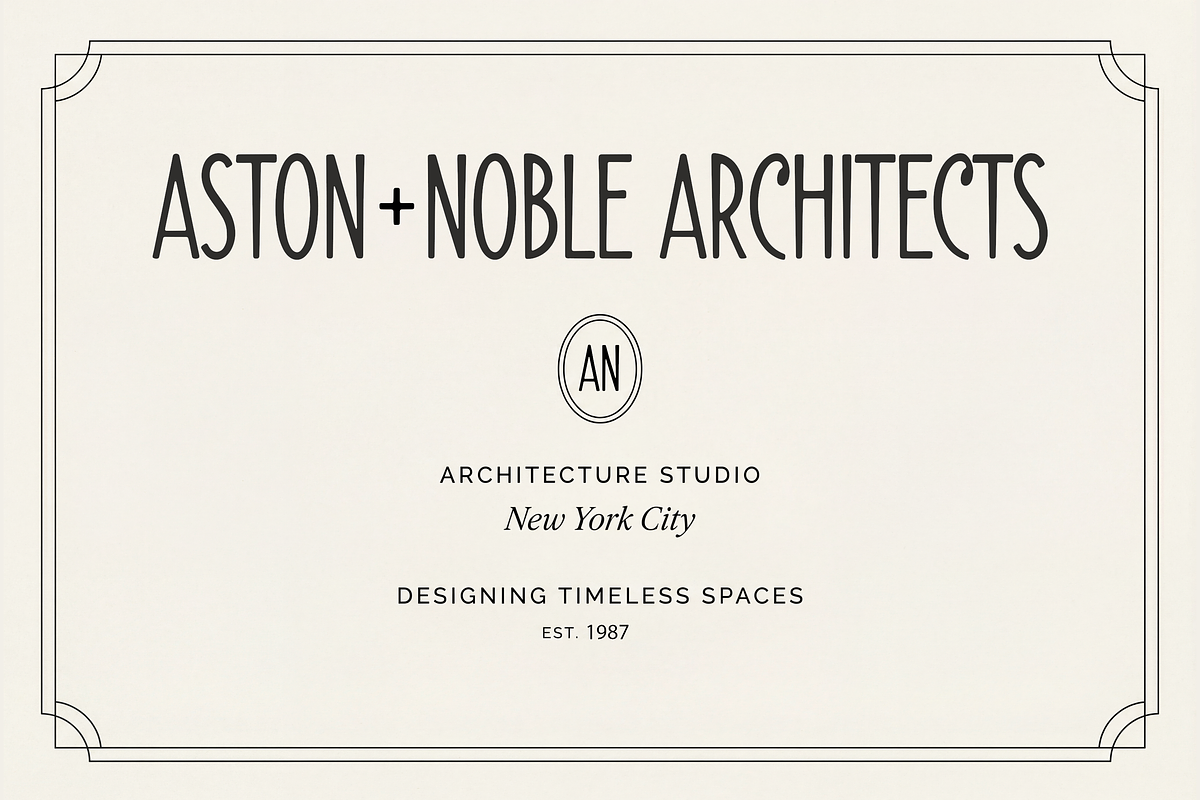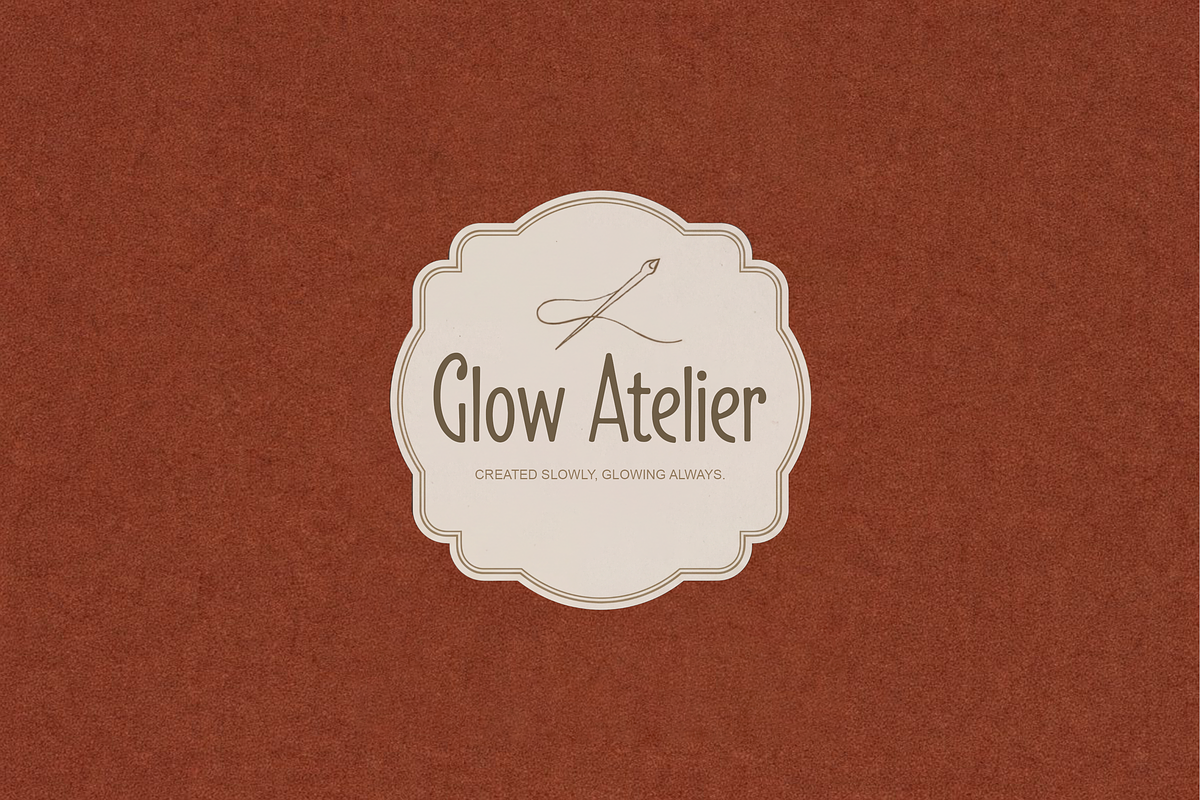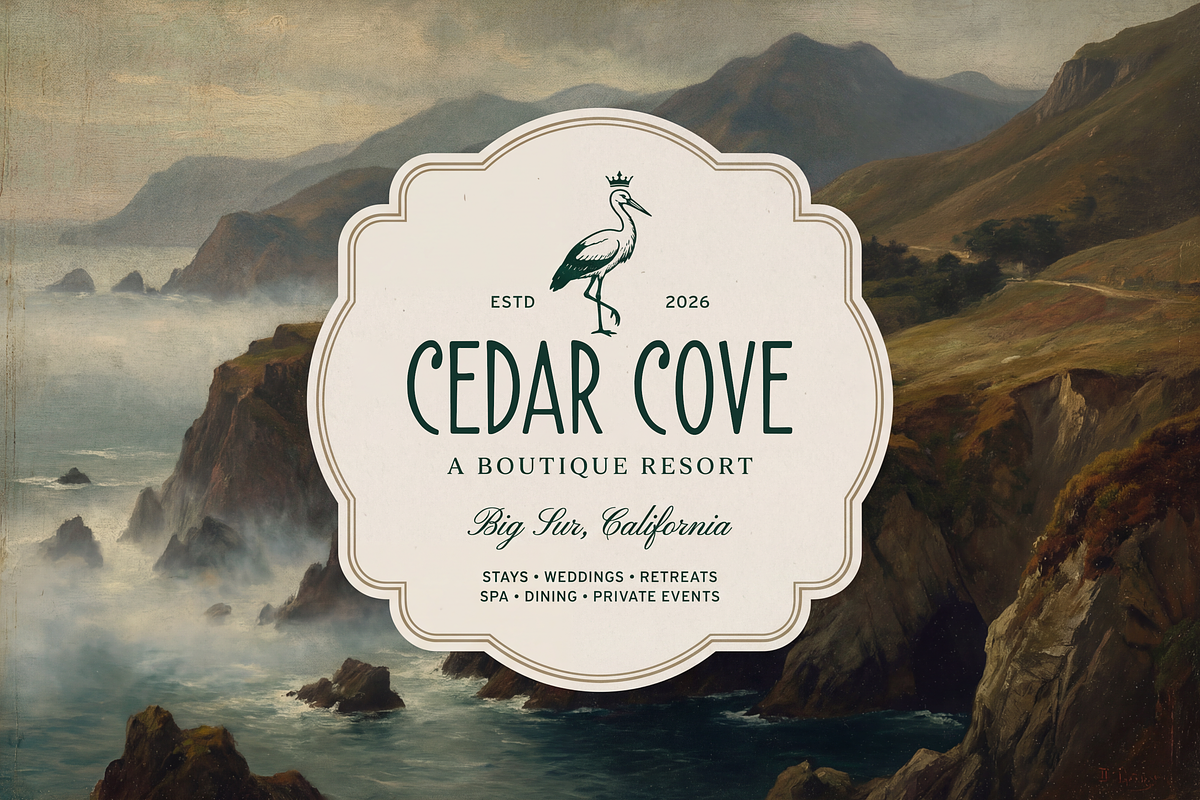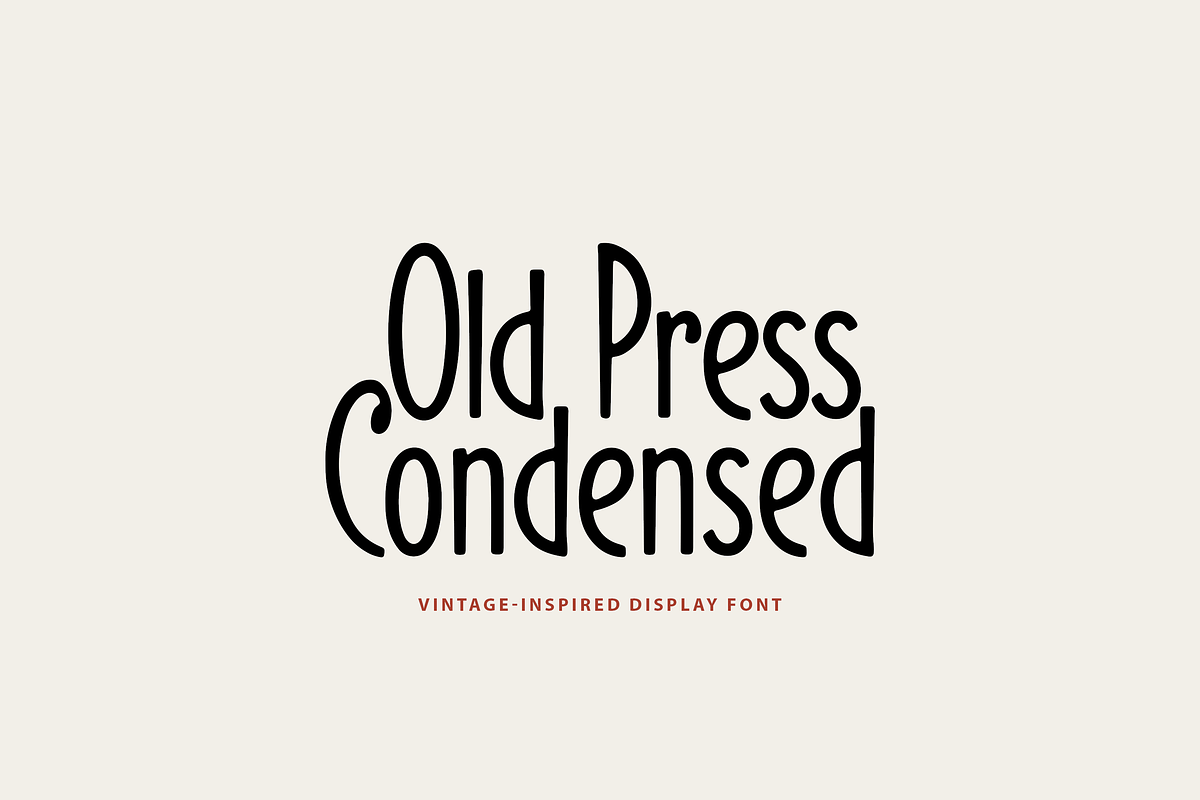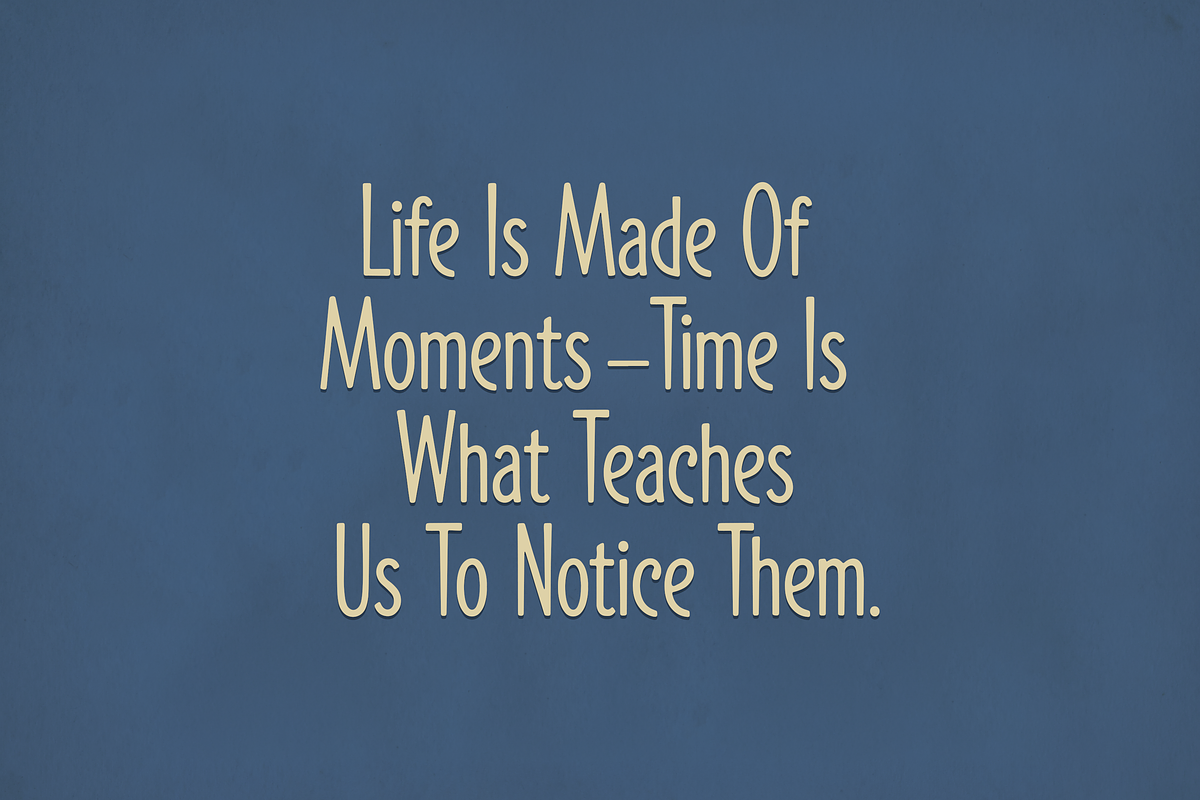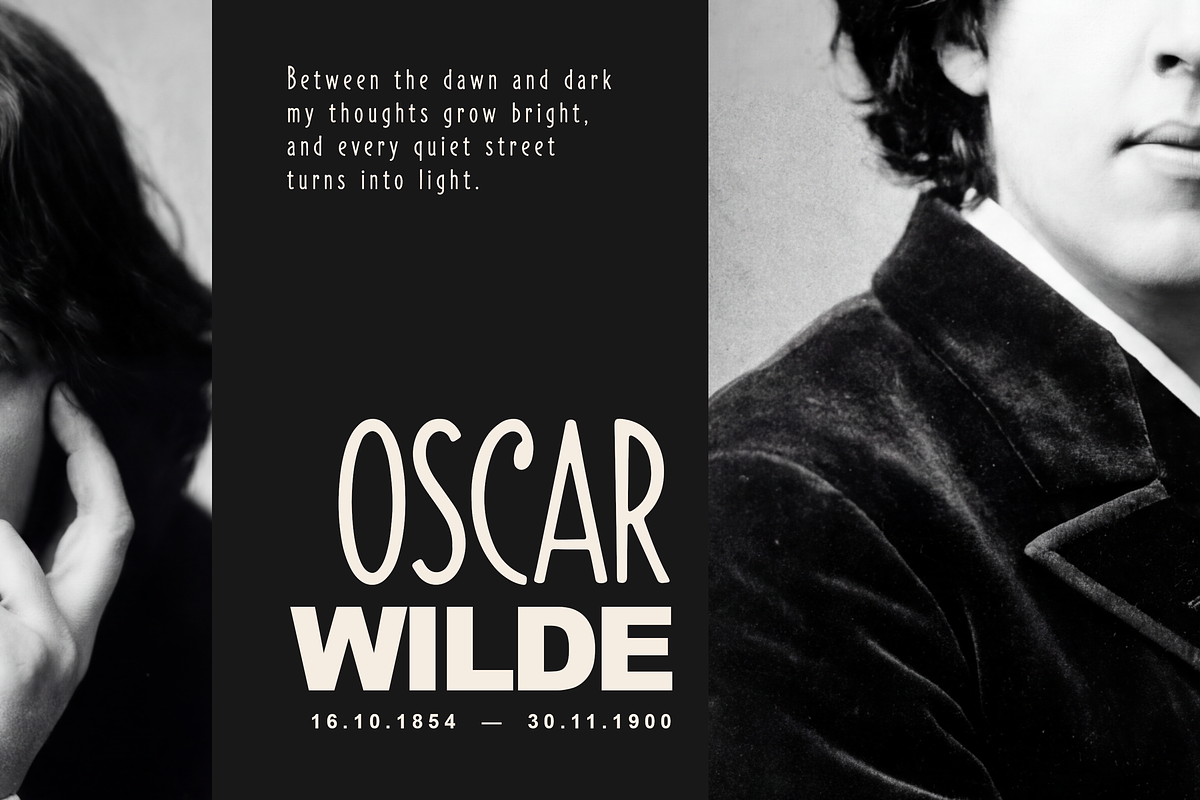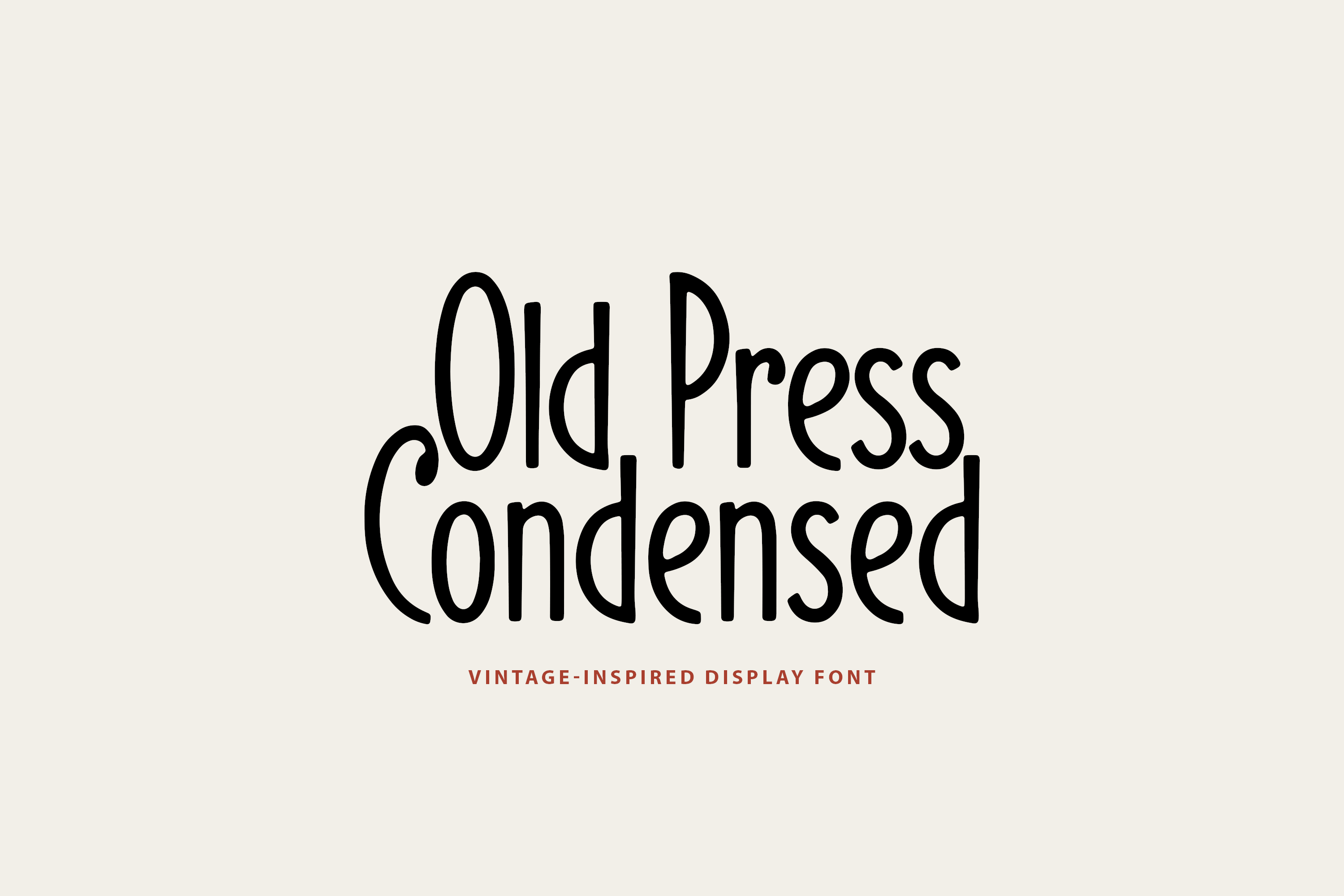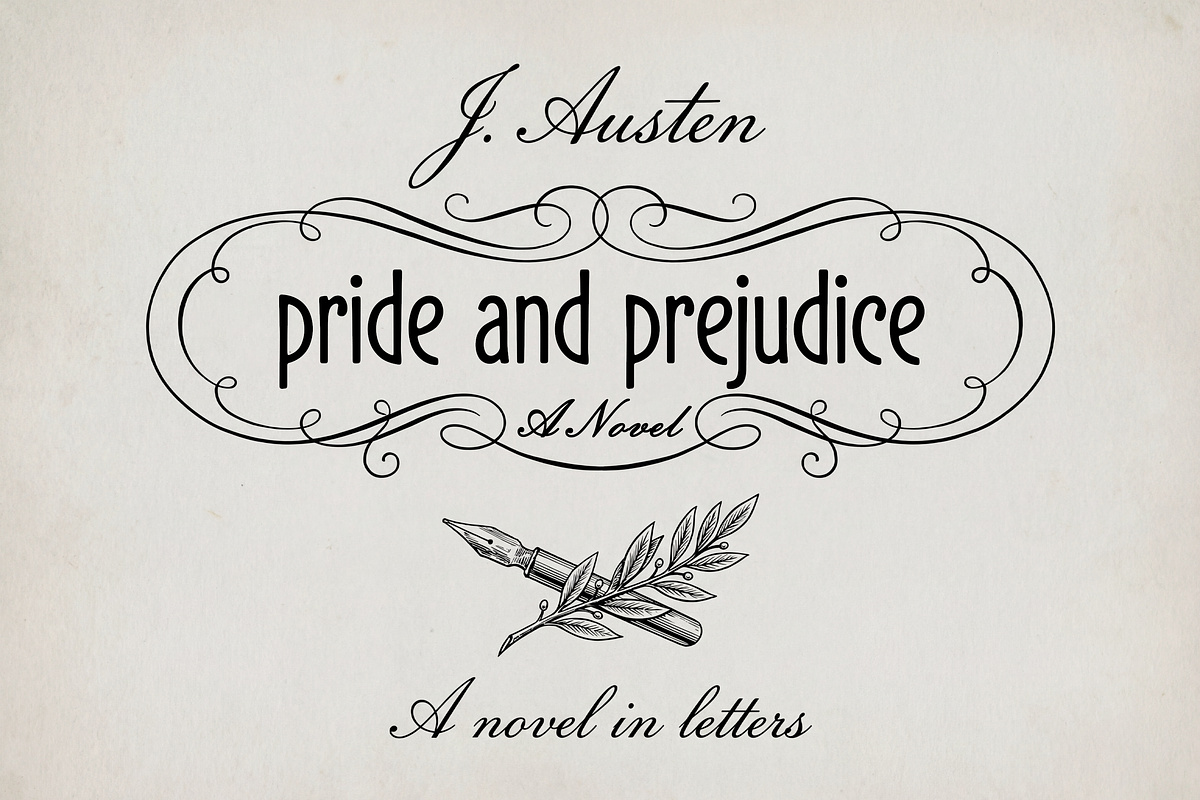
Old Press Condensed Font
Old Press Condensed is a bold, tall display font with a playful handcrafted feel and a strong poster-style presence. Its condensed proportions and slightly imperfect curves give it character—clean enough to stay readable, but quirky enough to stand out.
Perfect for headlines, packaging, retro-style branding, editorial layouts, café menus, labels, signage, book covers, and social media graphics. OldPressCondensed brings instant personality and punch to short words and big statements.
Tip: Pair it with a simple serif or neutral sans for a balanced, modern look.